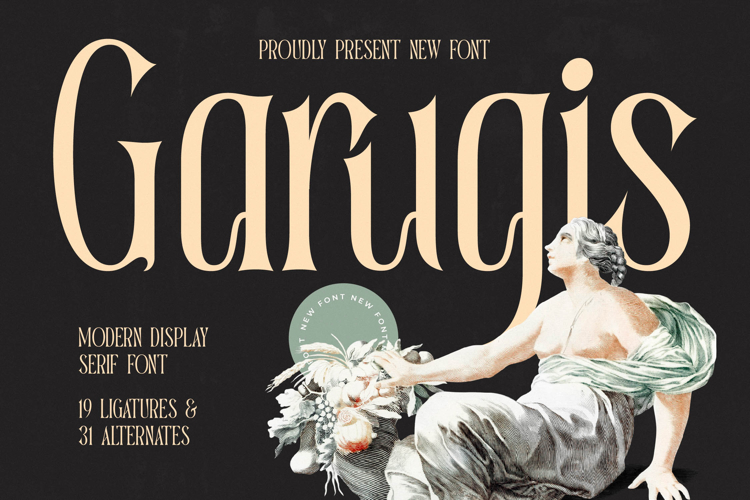
Garugis - Modern Display Serif Font
Elevate your designs with the timeless allure of Garugis - Modern Display Serif Font, a typeface meticulously crafted to convey unparalleled sophistication. This exquisite font blends classical elegance with a fresh, modern sensibility, featuring high-contrast strokes and gracefully refined serifs that command attention. Perfect for projects demanding a luxurious and distinctive visual identity, Garugis - Modern Display Serif Font promises to transform ordinary text into captivating artistry, making it an indispensable asset for discerning designers.
Unleash boundless creative flexibility with the rich features of Garugis - Modern Display Serif Font. Boasting 19 meticulously designed ligatures and 31 stylistic alternates, this font offers a wealth of customization options, allowing you to fine-tune every character and achieve a truly unique aesthetic. Its powerful visual presence makes it ideal for impactful display uses, ensuring your message is conveyed with both authority and a touch of refined charm.
Expand your global reach effortlessly with Garugis - Modern Display Serif Font. With its extensive multilingual support, Garugis - Modern Display Serif Font adapts seamlessly across global markets, making it incredibly versatile for international projects. This robust linguistic compatibility ensures your brand's message maintains its intended elegance and professionalism, no matter the language or region.